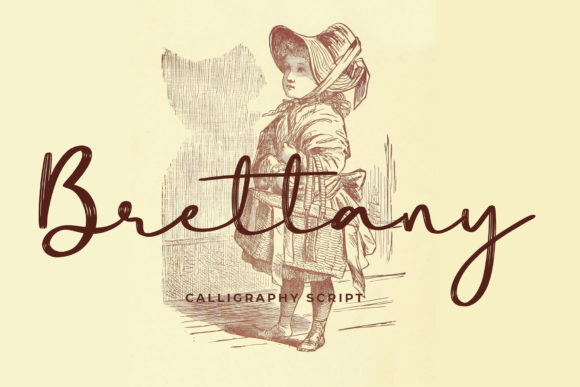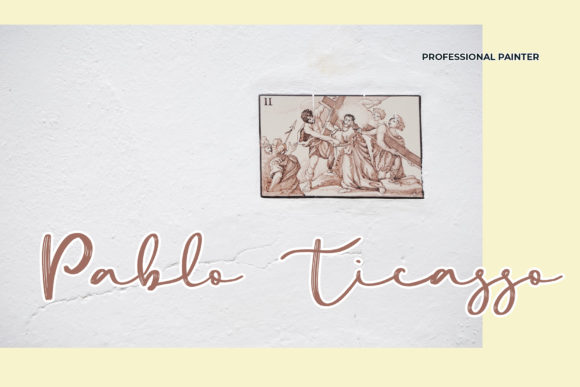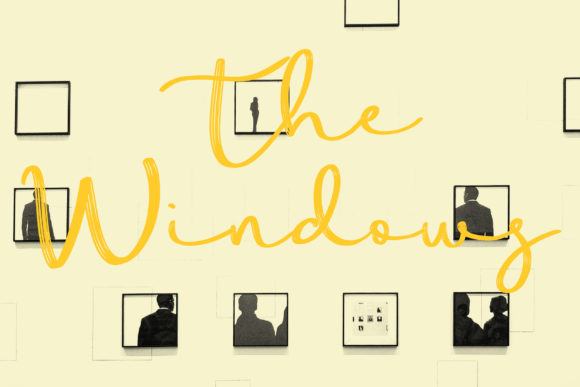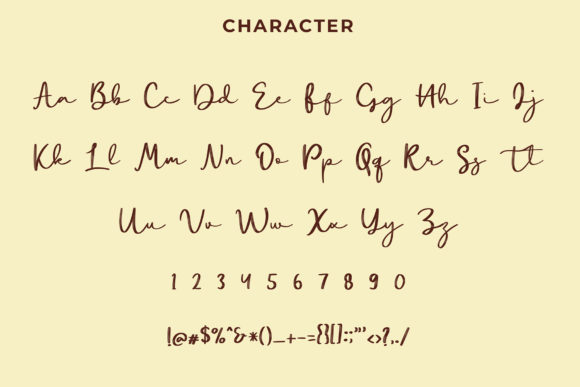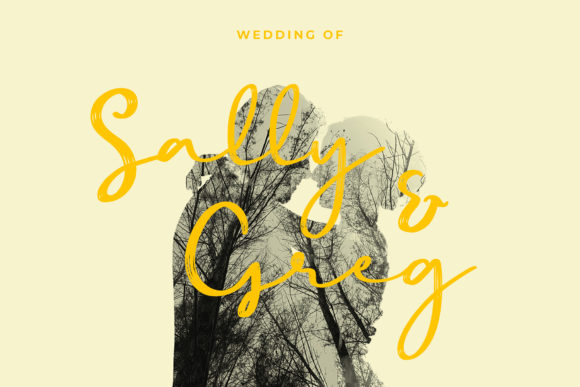
Brettany Font
About Brettany Font
Brettany is a calligraphy font that can be used for various purposes such as logos, wedding invitations, t-shirts, letterheads, and much more!This hand-written font will add a retro and beautiful style to your projects.